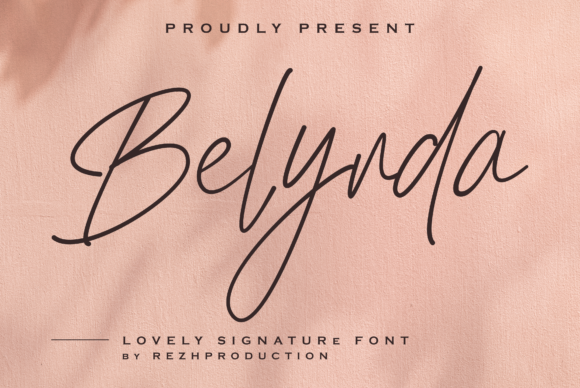
Welcome to the enchanting world of Belynda Font, a breathtaking script font that will caress your creative soul. Belynda is the epitome of elegance, a thin lettered masterpiece that dances across the digital canvas with grace and poise. Its ravishing style is a symphony of flowing lines and delicate curves, a true testament to the artistry of Peppertype, its creator.
Immerse yourself in the captivating beauty of Belynda, a font that effortlessly elevates your designs to new heights. With its timeless appeal, Belynda is the perfect choice for crafting gorgeous wedding invitations that exude romance and sophistication. Its delicate strokes add a touch of charm to any stationary art, transforming ordinary words into exquisite expressions of creativity. Unleash your inner artist and create eye-catching social media posts that will leave your followers spellbound.
Belynda is more than just a font; it's an experience. Its thin lines and graceful curves evoke a sense of nostalgia, taking you back to a time of handwritten letters and heartfelt sentiments. Use Belynda to create digital masterpieces that resonate with your audience, leaving a lasting impression that lingers in their hearts.
Whether you're a seasoned designer or just starting your creative journey, Belynda is the perfect tool to bring your vision to life. Its versatility knows no bounds, lending itself seamlessly to a myriad of projects. From stunning logos that demand attention to captivating email signatures that leave a lasting impression, Belynda is the font that sets you apart from the ordinary.
Step into the world of Belynda Font today and discover the endless possibilities that await you. Let your creativity soar, let your designs blossom, and let Belynda be your guiding light. Join the countless designers who have fallen in love with its charm and elevate your work to new heights. The journey begins now, and Belynda is your passport to greatness.